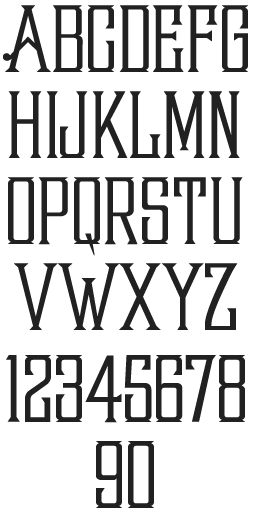
LHF Hamilton Nailhead Inspired by an early 1900's handbill from the Hamilton Bank Note Engraving & Printing Company. This font is the second of two fonts inspired by that handbill (the other is Hamilton Ornate)